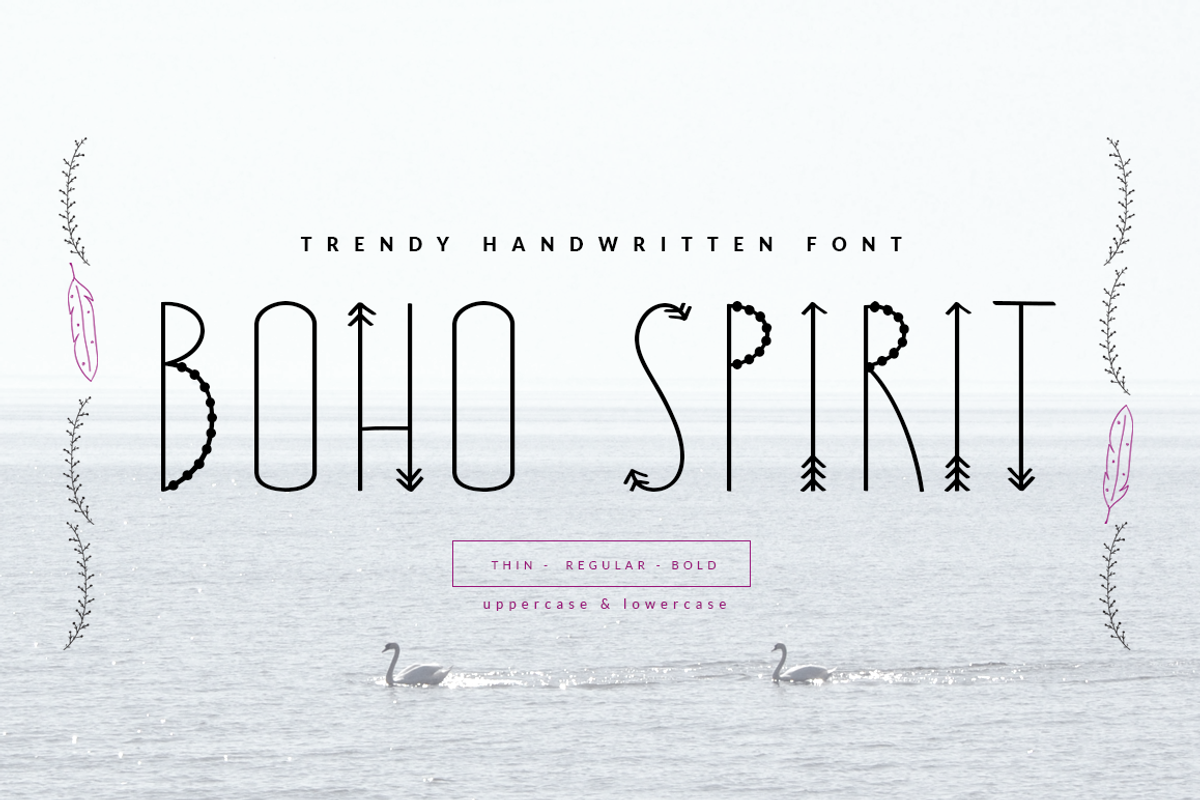
BOHO SPIRIT Handwritten Font + BONUS Free Download is a free-spirited, artistic typeface that radiates bohemian charm and creative energy. With its relaxed handwritten style and organic flow, BOHO SPIRIT is perfect for lifestyle branding, social media graphics, DIY projects, wedding stationery, and handmade product packaging. It brings a personal, earthy vibe to every design.
Packed with bonus extras like doodles or decorative elements, BOHO SPIRIT Handwritten Font + BONUS Free Download lets you take your creativity even further. Its playful strokes and imperfect curves make it a great choice for anyone wanting to break away from sterile, corporate fonts and embrace something more authentic and expressive.